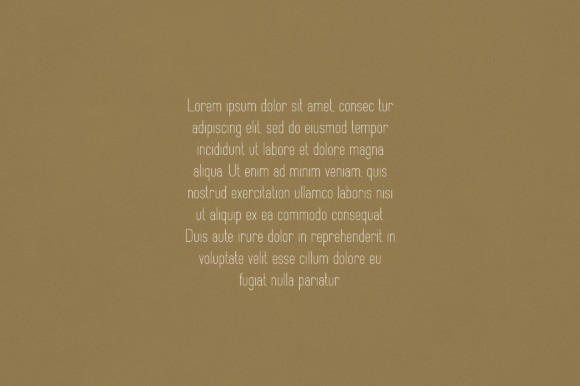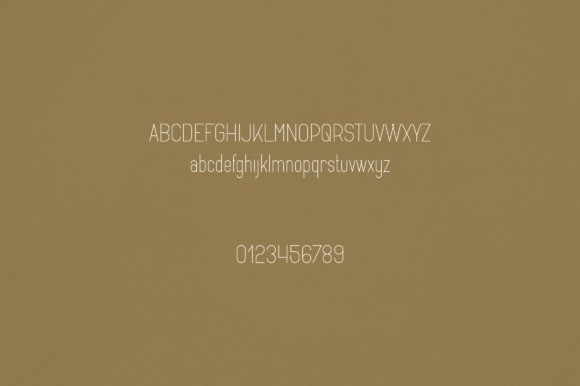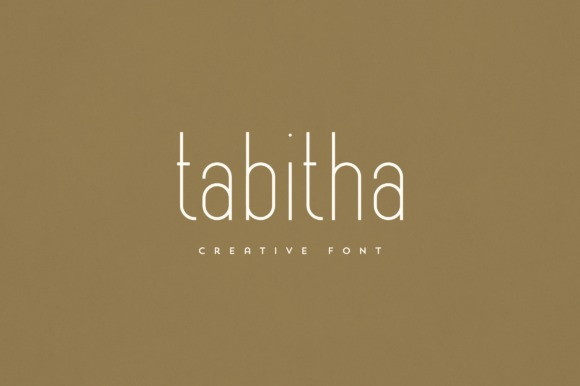
Tabitha Sans Font
Tabitha Sans Font is an elegant and versatile sans serif font that will make your typography truly unique! It will enchant every logo, branding, headline, or plain text!